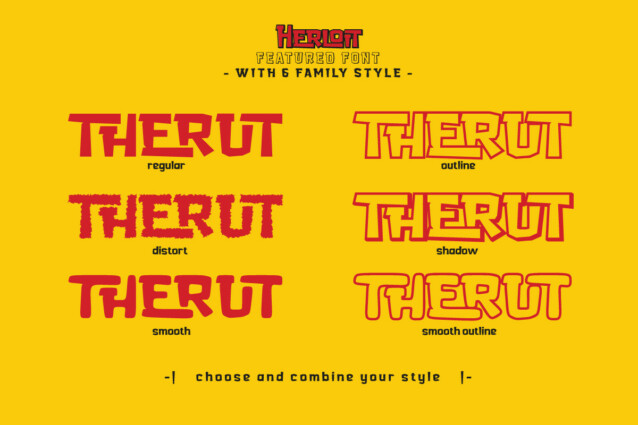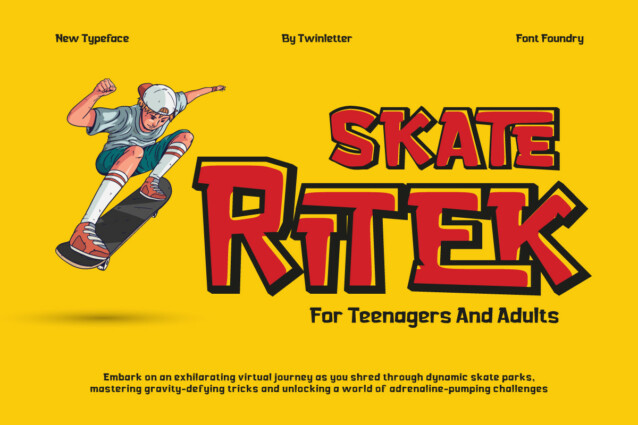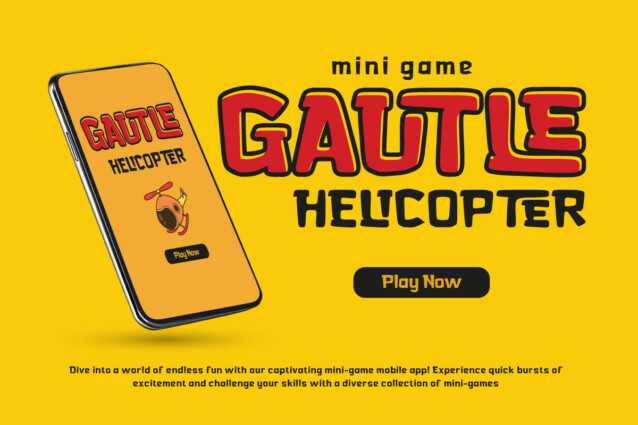
Herloit Font
Herloit Font is an unrivaled choice for gaming enthusiasts and designers who want a unique look that reflects the spirit of gaming. With six amazing styles, including Regular, Smooth, Outline, Shadow, and Distort, Herloit brings a new dimension to your designs.
The Regular style provides clarity and readability, while Smooth adds a subtle touch for a more modern aesthetic. Outline brings an artistic element, Shadow provides a deep effect, and Distort brings a striking futuristic look.